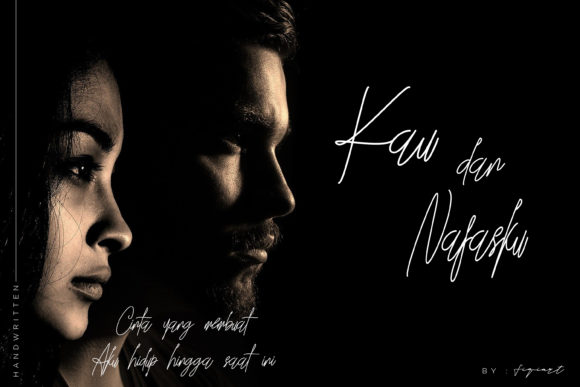
Introduction to Mika Tamrin Font
Mika Tamrin feels equally charming and elegant.
This stunning handwritten font is a stylish homage to classic calligraphy It features a varying baseline, smooth lines, gorgeous glyphs and stunning alternates.